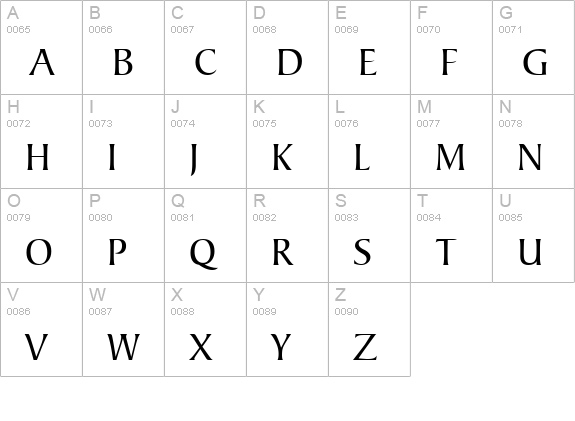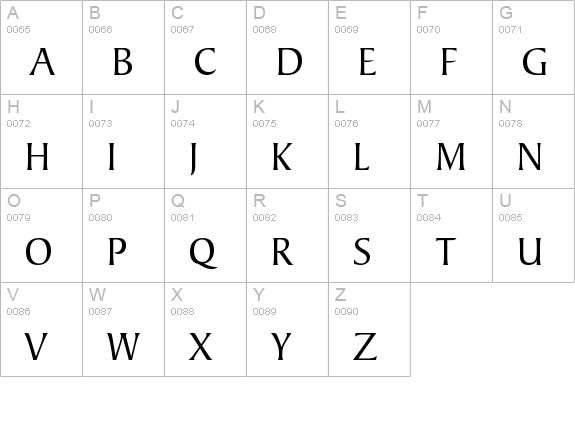
00260 Font Details
00260 font is a versatile and elegant typeface that exudes sophistication and modernity. With its clean lines and stylish appearance, this font is perfect for a wide range of design projects, from branding to editorial design. The sleek and contemporary look of 00260 font makes it a popular choice among designers looking to add a touch of class to their work. One of the best things about 00260 font is that it is completely free to download. You can easily access this stunning font at FontsMarket.com, where you can find a range of other high-quality fonts to complement your creative projects. Whether you're working on a logo, website, or print design, 00260 font is sure to make a statement and elevate your work to the next level. Download 00260 font today and bring a touch of elegance and style to your projects with this exceptional typeface.